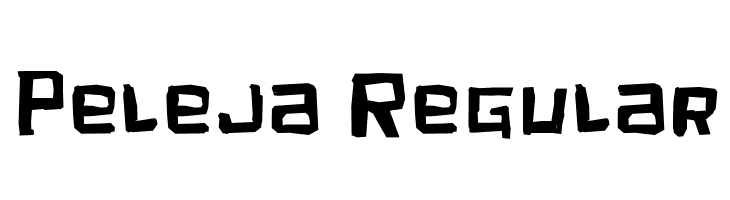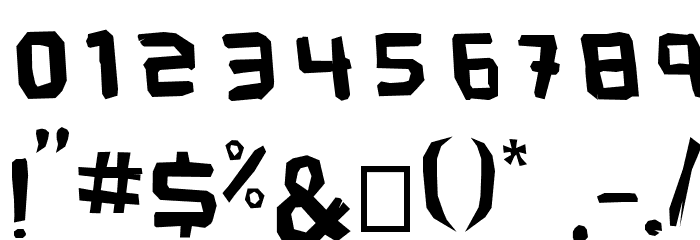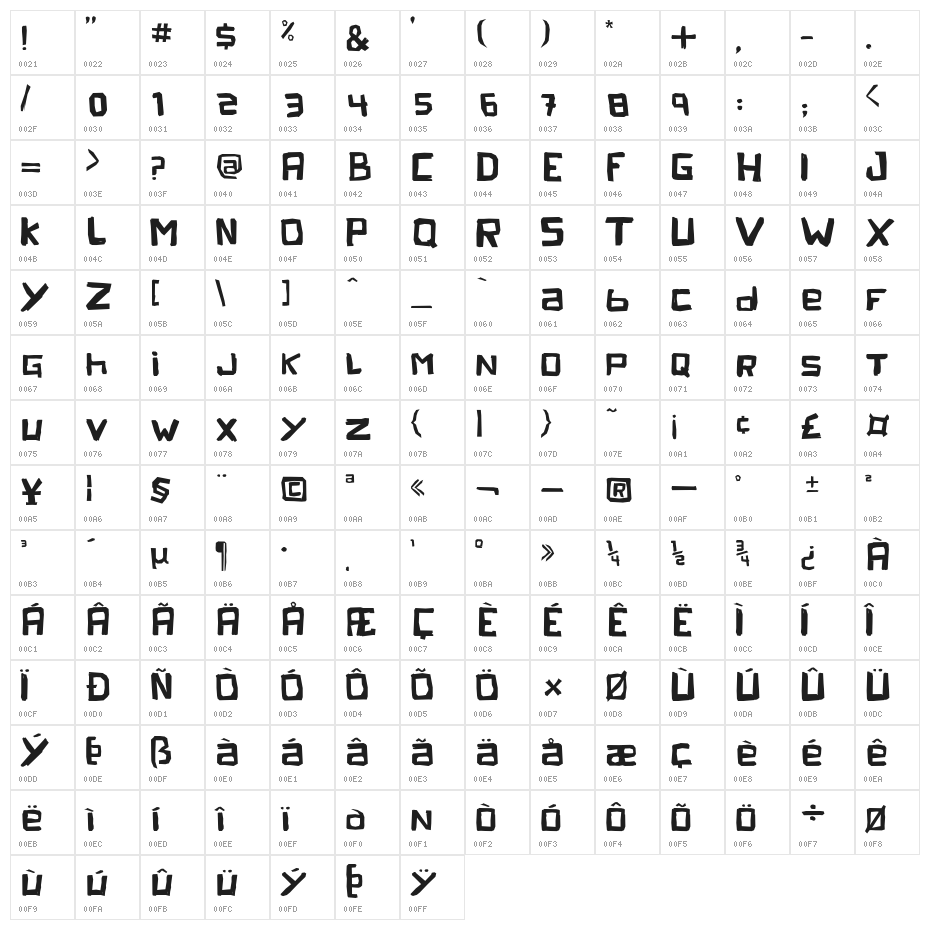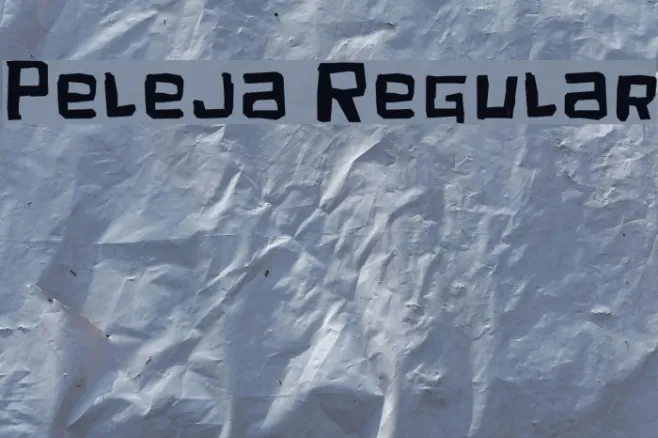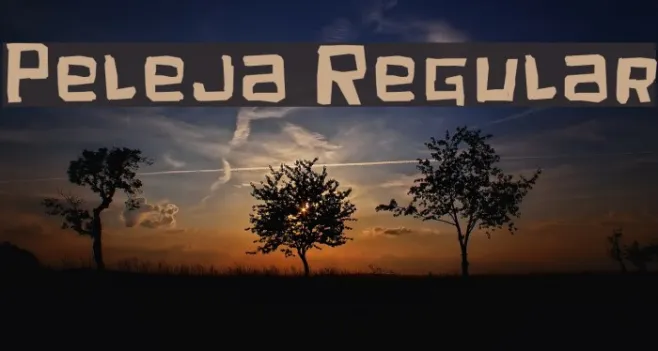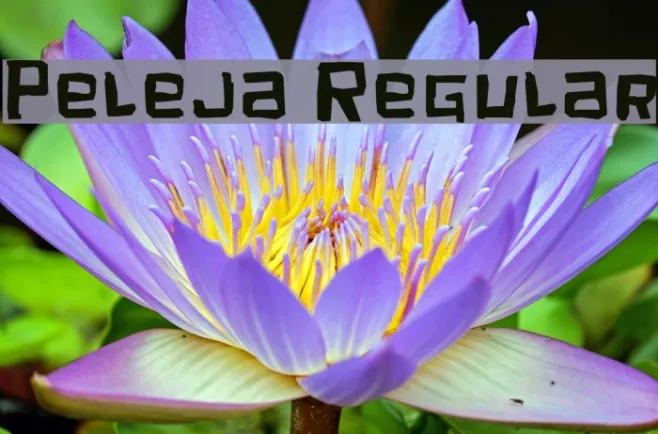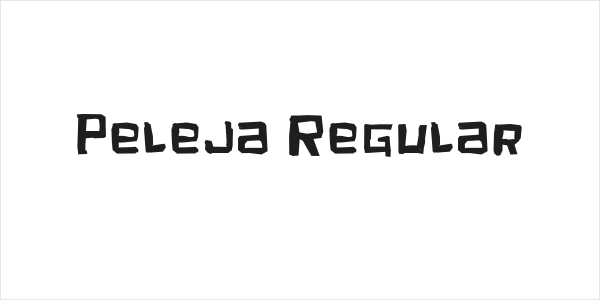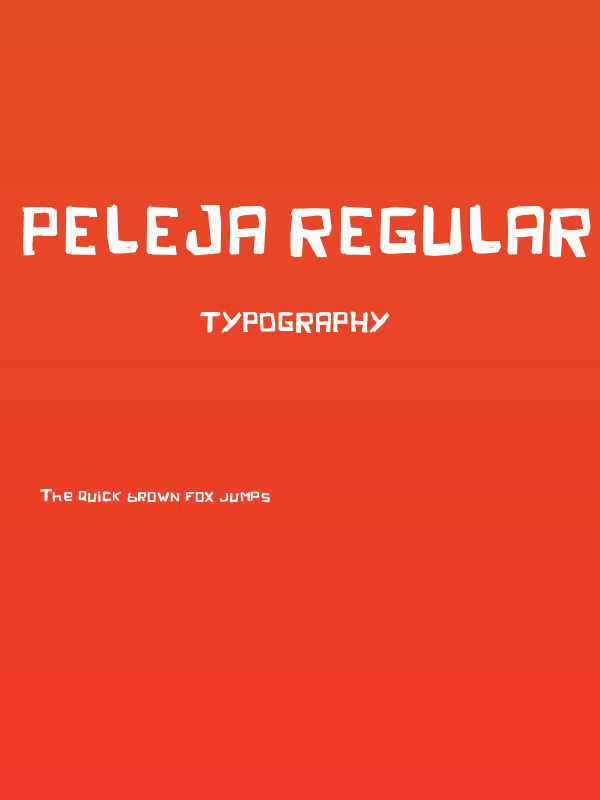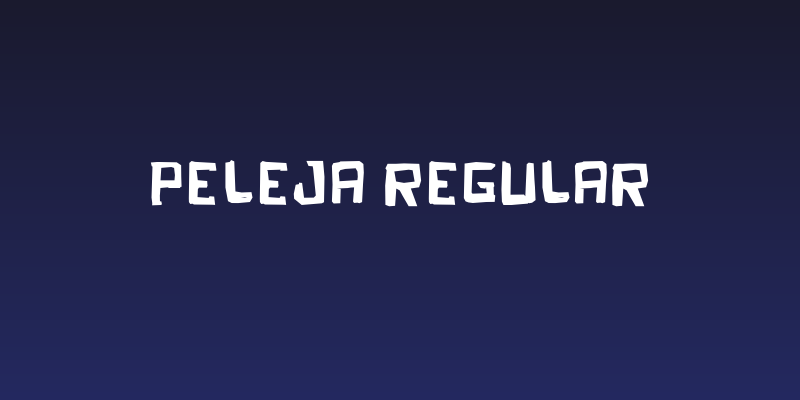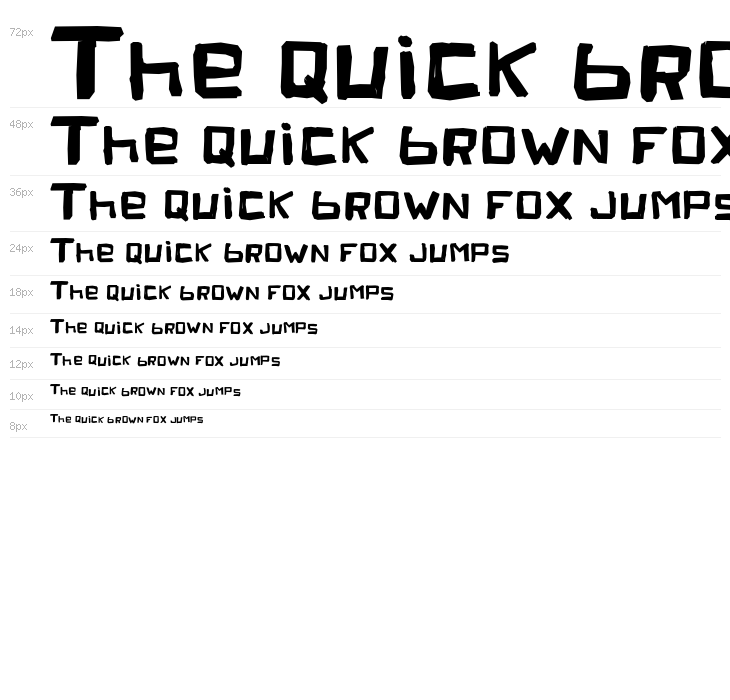
Peleja Regular Font
Peleja Regular Description
This font features a bold, hand-drawn style with irregular, jagged edges that give it a rugged and organic appearance. The uppercase and lowercase letters maintain a consistent height, contributing to a cohesive look, while the numbers and special characters follow the same stylistic approach. The font's uneven strokes and playful design make it stand out, offering a unique and artistic vibe. Its boldness ensures high visibility, making it suitable for attention-grabbing designs. The characters are slightly condensed, allowing for efficient use of space without compromising readability.
| Overall Style | Artistic, Rugged |
| Proposed Projects | Ideal for posters, album covers, branding projects, and any design requiring a bold, artistic touch. |